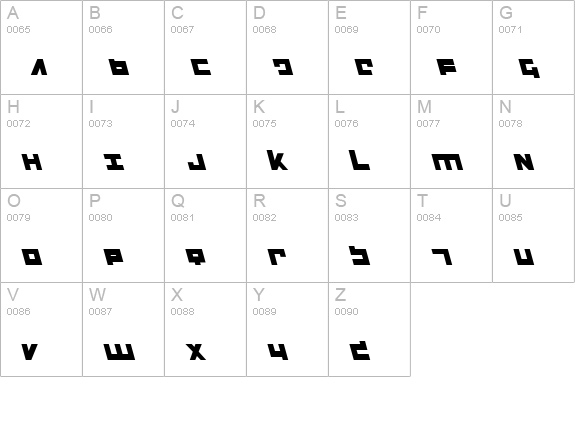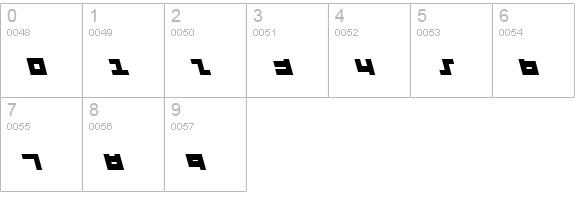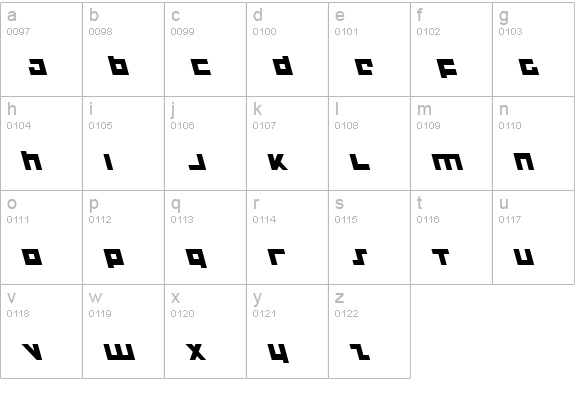
Flight Corps Leftalic font is a bold and dynamic typeface that exudes a sense of adventure and exploration. Its slanted and italicized characters give it a modern and futuristic look, perfect for projects that require a touch of innovation and creativity. The sleek and stylish design of Flight Corps Leftalic font makes it a versatile choice for a wide range of applications, from branding to advertising to editorial design. What sets Flight Corps Leftalic font apart is its sense of movement and energy, capturing the excitement of travel and discovery. The sharp angles and unique letterforms give this font a distinctive and memorable appearance that is sure to make your text stand out. And the best part? Flight Corps Leftalic font is available for free download at FontsMarket.com, making it accessible to anyone looking to add a touch of sophistication and flair to their projects. So why wait? Download Flight Corps Leftalic font today and take your designs to new heights!